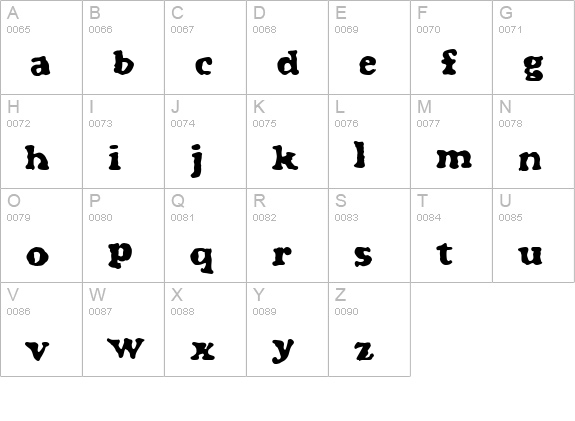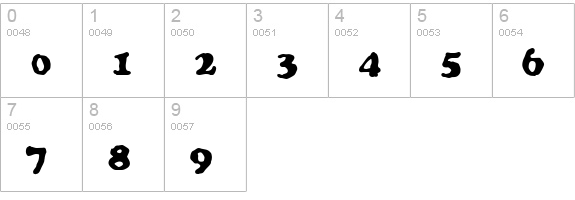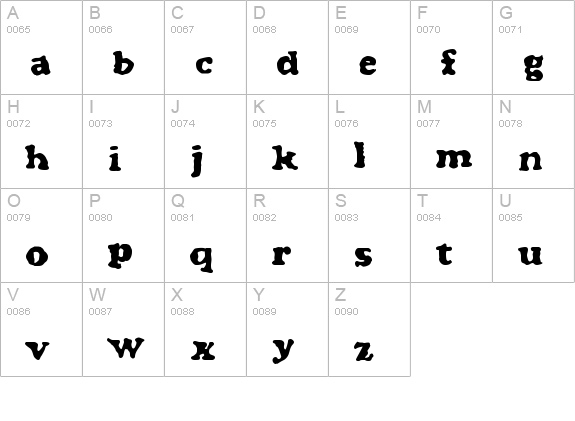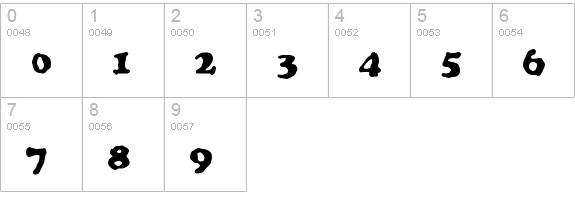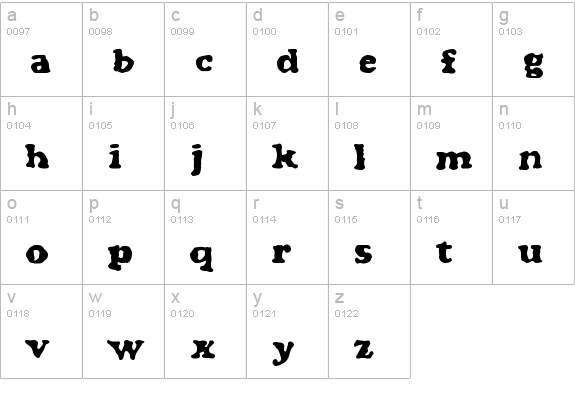
BlooperSolid Font Details
Introducing BlooperSolid font, a playful and eye-catching typeface that adds a touch of whimsy to any design project. This font features solid, rounded letters with a friendly and inviting appearance, making it perfect for a variety of creative applications. Whether you're designing a poster, logo, or greeting card, BlooperSolid font will bring a fun and modern flair to your work. Best of all, BlooperSolid font is available for free download at FontsMarket.com. With its unique style and versatility, this font is sure to become a go-to choice for your design needs. Add a touch of charm and personality to your projects with BlooperSolid font today!